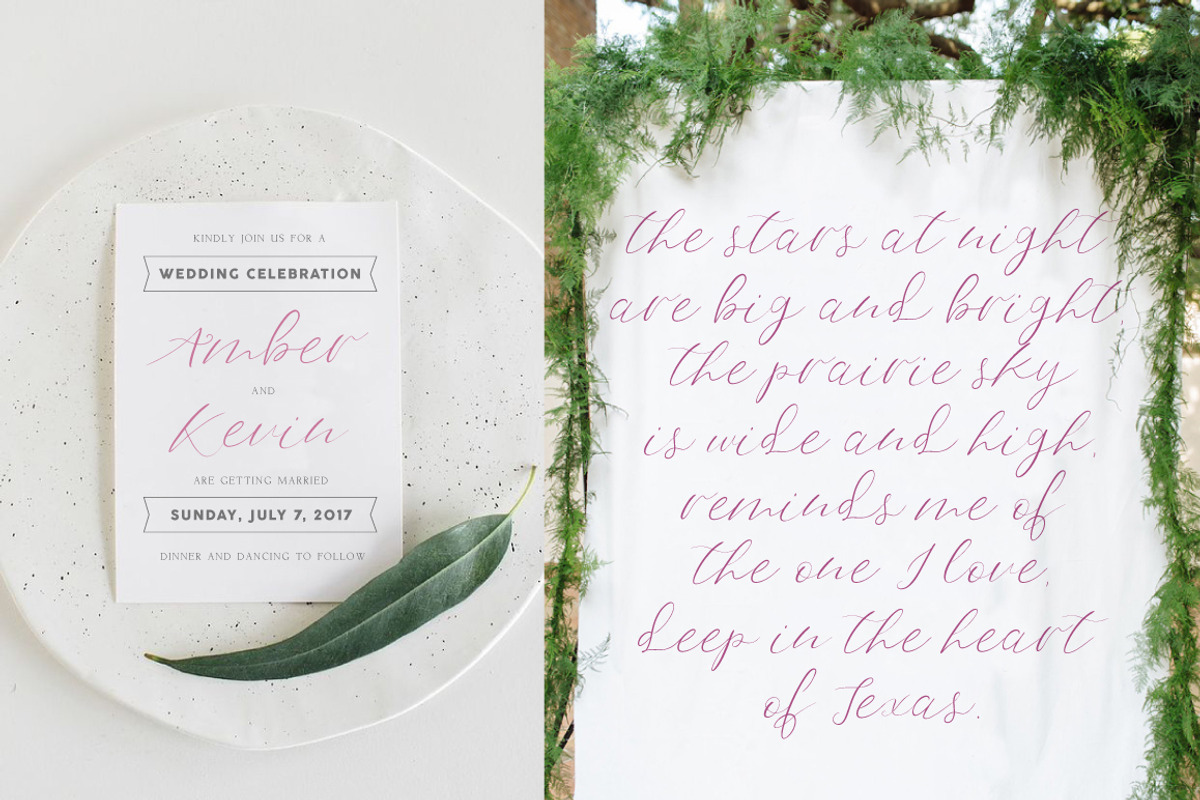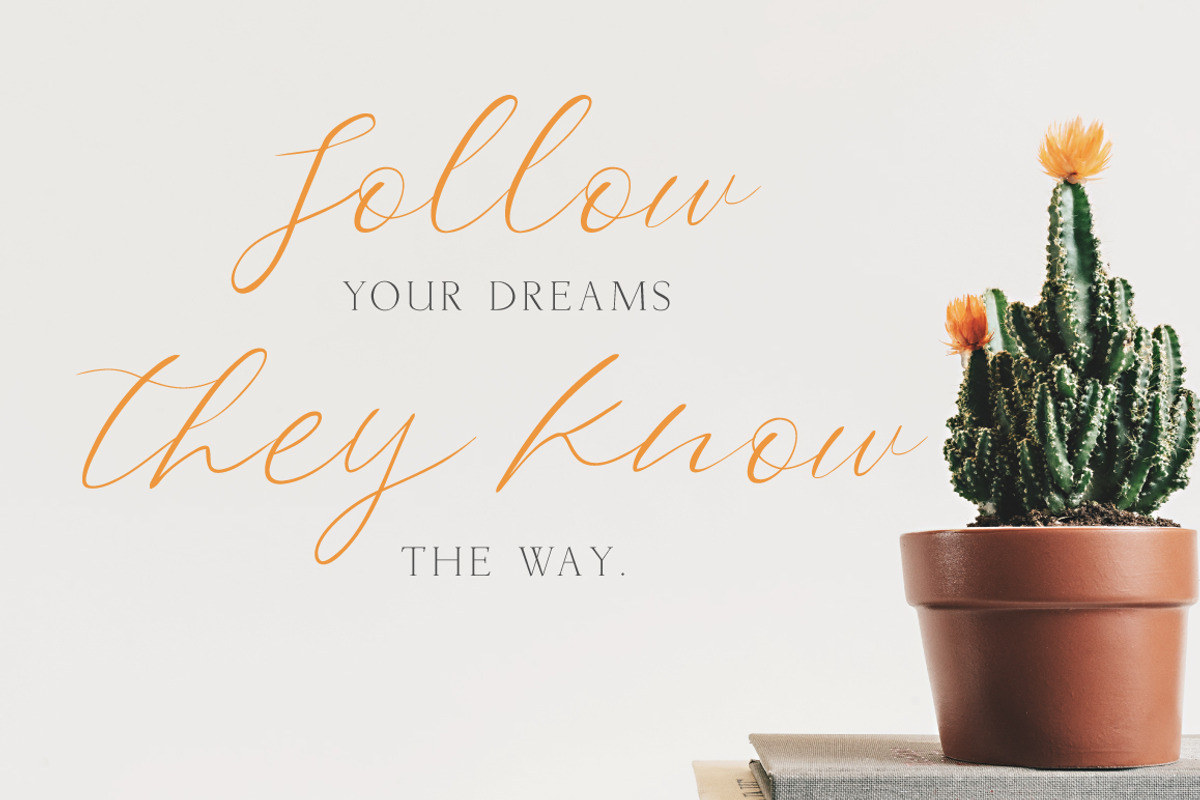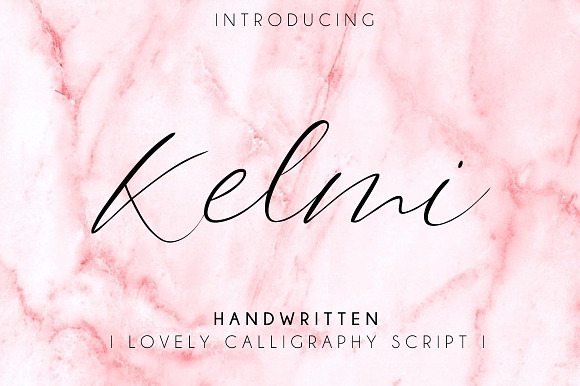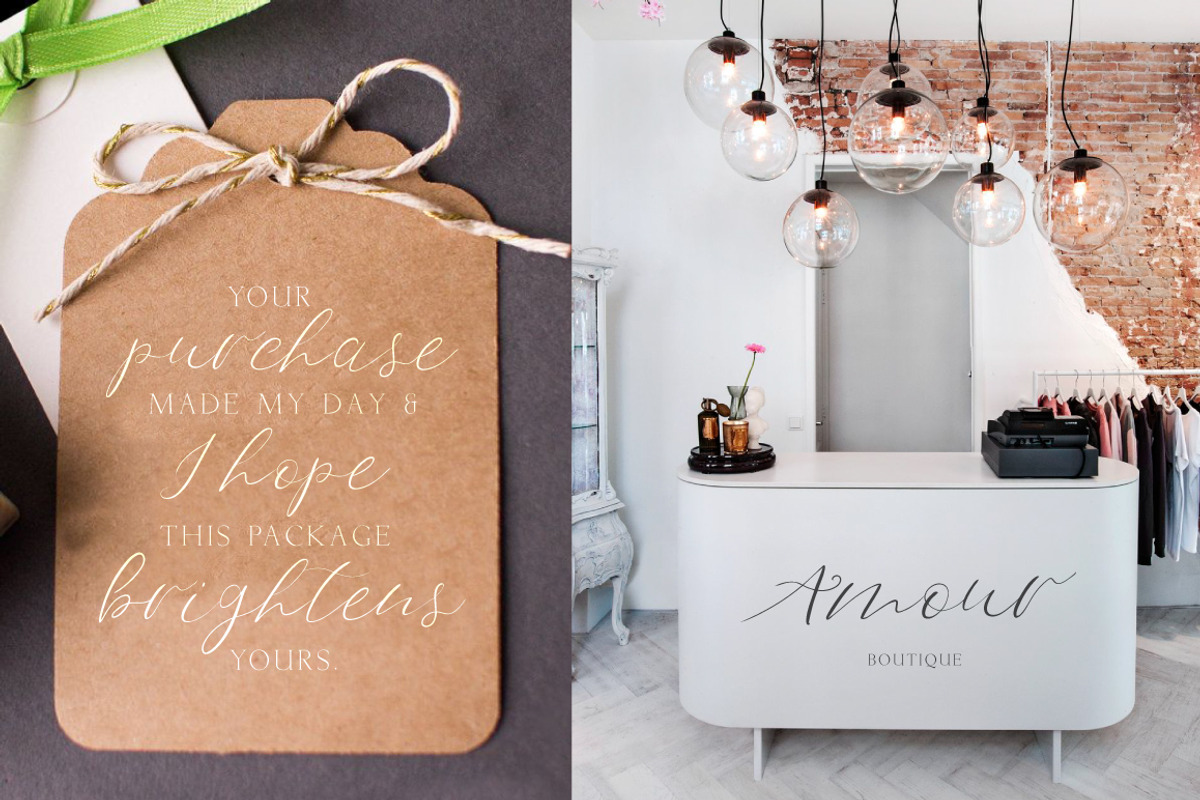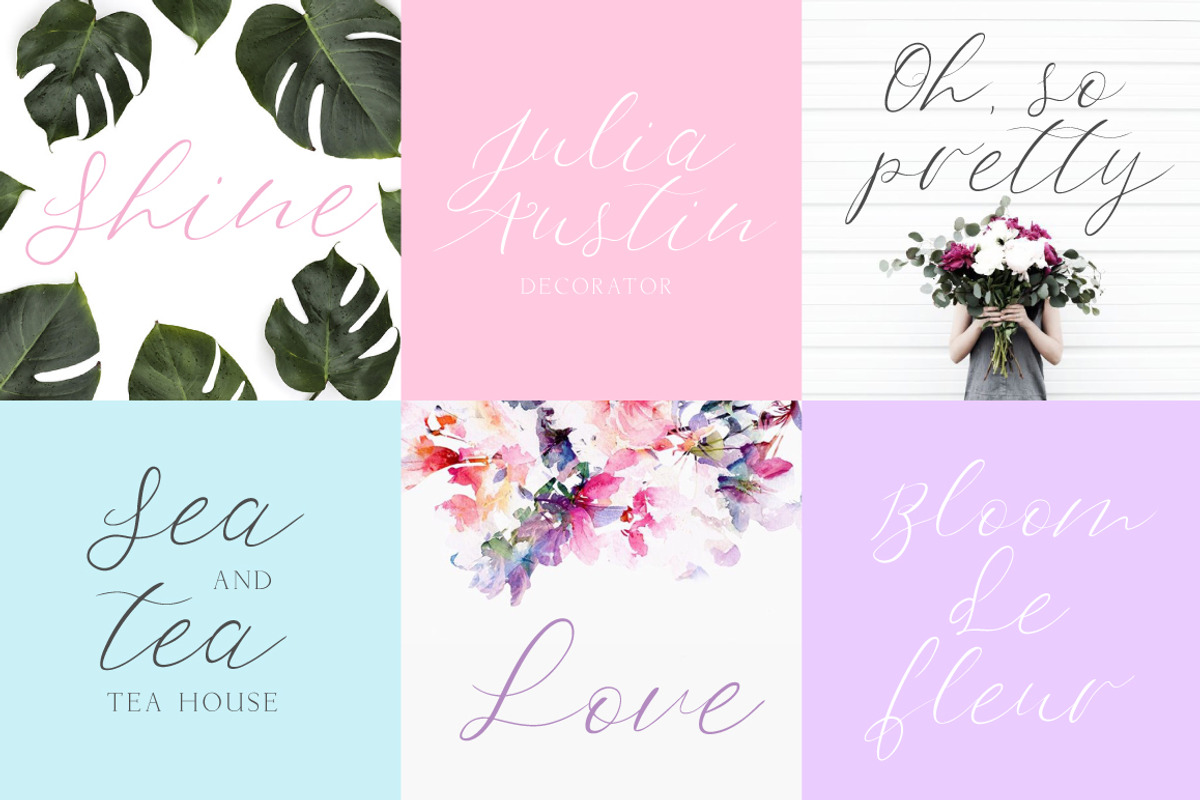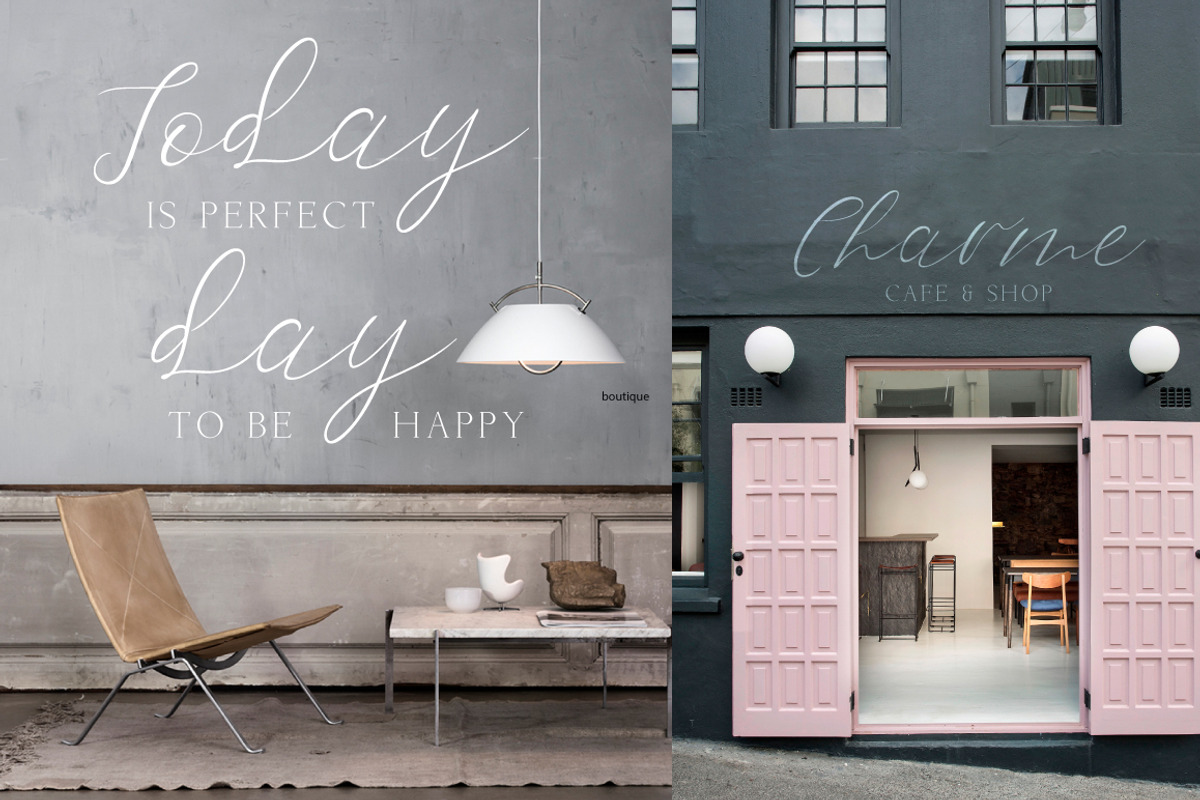
Kelmi Font
It's handwritten script. This font is ideal for branding and decorate your any project.
This font are perfect for wedding invitation or your blog. Also with their help, you can create a logo or beautiful frame for your home. Or just use for your small business, book covers, stationery, marketing, magazines and more.
Why Kelmi Font is worth a look
Kelmi Font by Creamy Script fits naturally into Branding, posters, packaging, typography.